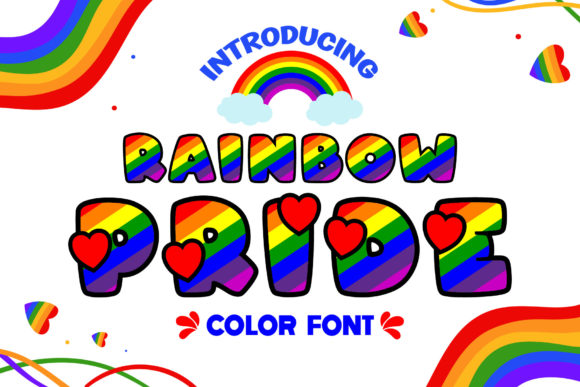
Introducing Rainbow Pride Font, the ultimate choice for those seeking the best font for a vibrant and captivating 2-color logo! Created by the talented Fox7, this font is a masterpiece in the world of colorful typography.
Rainbow Pride Font is not your ordinary font - it's a beautiful and cute color font that will add a touch of magic to any design project. Whether you're creating a logo, poster, website, or any other visual masterpiece, this unique font is guaranteed to make it stand out from the crowd.
With Rainbow Pride Font, you have the opportunity to unleash your creativity and design products that will leave others in awe. Let your imagination run wild and create stunning visuals that inspire and captivate your audience. Every stroke of this font exudes joy, positivity, and a sense of celebration.
Imagine the possibilities with Rainbow Pride Font. Whether you're designing a logo for a vibrant and inclusive brand, creating eye-catching social media graphics, or crafting invitations for a joyous celebration, this font will be your ultimate tool for success.